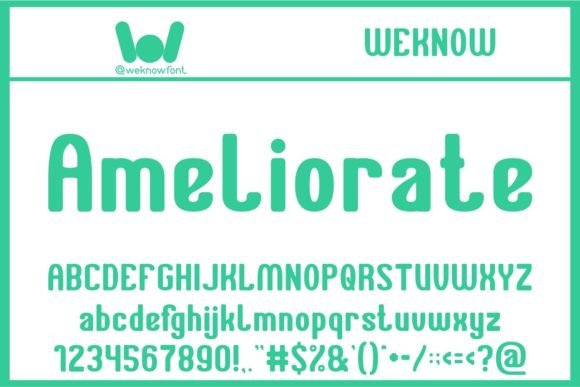
Introducing Ameliorate - a modern, colorful sans serif font family with a dynamic, playful personality that dances off the page. Designed by the talented team at weknow, Ameliorate is a visual masterpiece that captures attention, ignites imaginations, and brings a touch of vibrancy to any design project.
Step into a world of creativity and let Ameliorate's playful energy ignite your designs. Its minimalist lines and bold, eye-catching style make it the perfect choice for digital media, advertising, and any project that demands a spark of fun and energy.
Ameliorate's versatility shines through in its ability to elevate ordinary text into captivating headlines, transform drab paragraphs into engaging stories, and turn social media posts into eye-catching magnets. Its dynamic curves and sharp angles create a visual rhythm that dances across the screen, capturing the attention of every viewer.
With Ameliorate, you'll discover a font that's more than just a collection of letters and symbols; it's an expression of your creativity, a reflection of your brand's personality, and a tool to captivate your audience. Unleash your imagination and watch as Ameliorate transforms your designs into vibrant, unforgettable experiences.
Whether you're creating a modern magazine cover that demands attention, designing a digital campaign that sparks engagement, or simply seeking to add a touch of playful energy to your branding, Ameliorate is the font that will elevate your vision and leave a lasting impression on your audience.
Take your designs to the next level with Ameliorate - the font that ignites creativity, captivates audiences, and makes your designs dance with vibrant energy. Embrace the power of Ameliorate and unlock a world of design possibilities.